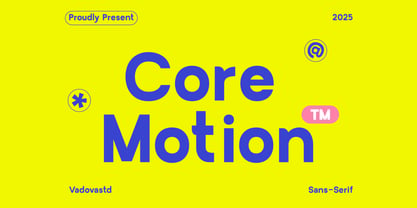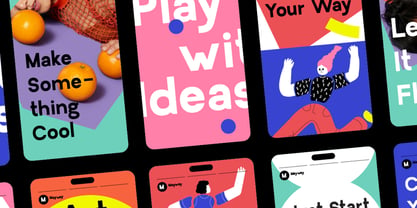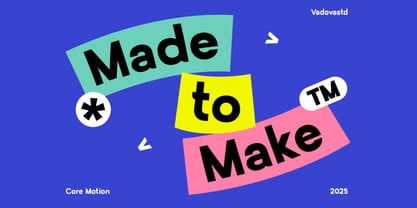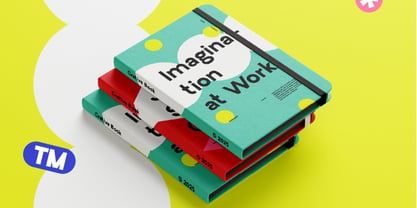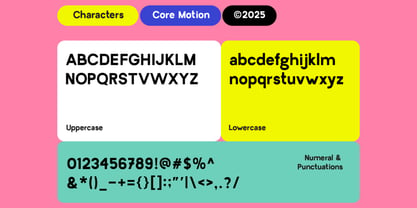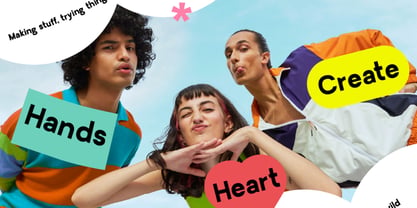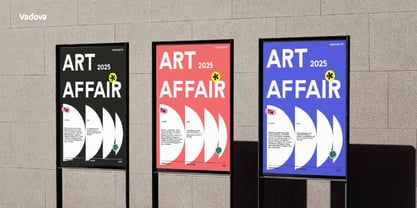
Core Motion
Core Motion is a bold, modern sans serif typeface designed with visual clarity and contemporary appeal in mind. Featuring clean geometric shapes, strong visual presence, and consistent stroke weight, this font delivers excellent readability across both display and text settings. Core Motion is ideal for designers and creatives who need a modern, strong typographic voice that performs well in both display and functional roles. Its clean geometric design makes it perfect for brand identities, product packaging, editorial spreads, posters, digital marketing banners, UI/UX interfaces.